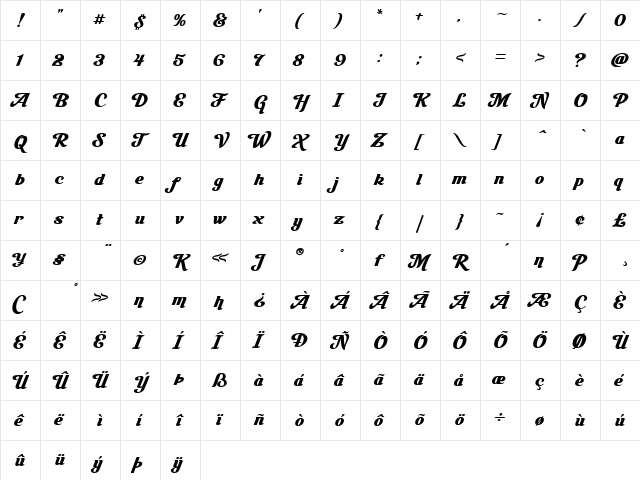
LHF Milkman Regular
Design Context for LHF Milkman Typeface
LHF Milkman is a composed and adaptable typeface that performs quietly and consistently across a wide range of design contexts.